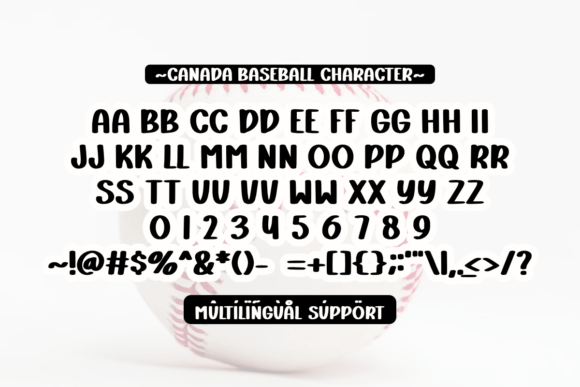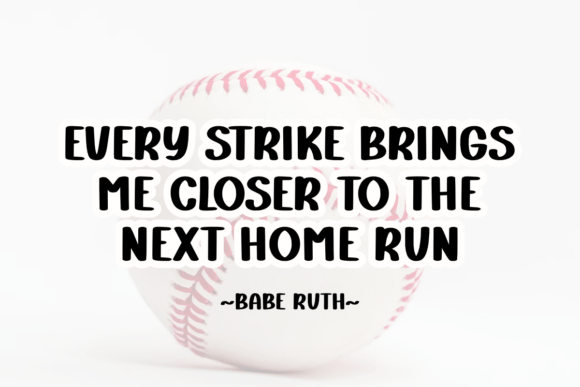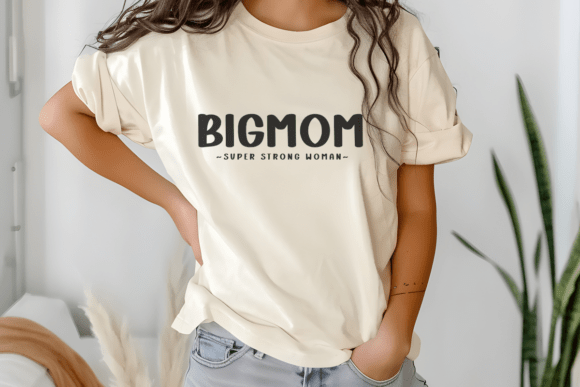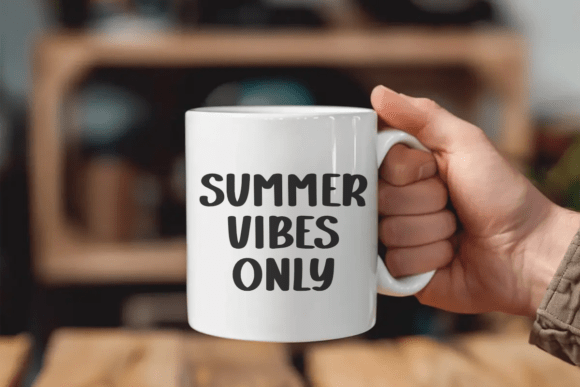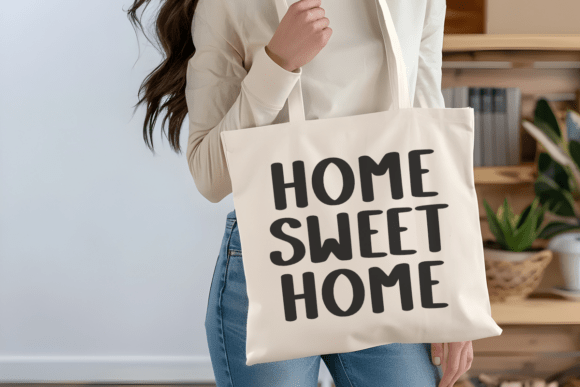
Introducing Canada Baseball Font: The Perfect Choice for Your Creative Projects
Are you a designer, crafter, or DIY enthusiast looking for a fun and bold font to elevate your creative projects? Look no further than the Canada Baseball Font! This sans serif font is perfect for a wide range of applications, from greeting cards and wedding invitations to gift labels, mugs, t-shirts, and more.
What Makes Canada Baseball Font So Special?
Canada Baseball Font is a unique and eye-catching font that is sure to make your designs stand out. Its bold and playful style makes it perfect for creating spectacular and interesting designs that will capture the attention of your audience. Whether you’re creating a fun and casual design or a more formal and elegant one, this font is sure to deliver.
Uses for Canada Baseball Font
Canada Baseball Font is a versatile font that can be used for a wide range of creative projects, including:
- Greeting cards: Create fun and festive greeting cards for birthdays, holidays, and special occasions.
- Wedding invitations: Make your wedding invitations stand out with this bold and playful font.
- Gift labels: Add a personal touch to your gifts with custom labels featuring your name or a special message.
- Mugs: Create fun and unique mug designs that are perfect for coffee, tea, or hot chocolate lovers.
- T-shirts: Design eye-catching t-shirts that are perfect for casual wear or as a promotional item.
- Quotes: Create inspiring and motivational quotes that are perfect for social media, posters, or flyers.
- Labels: Use this font to create custom labels for your products, packaging, or marketing materials.
Why Choose Canada Baseball Font?
There are many reasons why Canada Baseball Font is the perfect choice for your creative projects. Here are just a few:
- Unique style: This font has a unique and eye-catching style that is sure to make your designs stand out.
- Ease of use: Canada Baseball Font is easy to read and use, making it perfect for a wide range of applications.
- Versatility: This font can be used for both digital and print projects, making it a great choice for designers and crafters.
- Fun and playful: Canada Baseball Font is a fun and playful font that is perfect for creating designs that are lighthearted and humorous.
Tips for Using Canada Baseball Font
Here are a few tips for using Canada Baseball Font in your creative projects:
- Experiment with colors: Try pairing this font with different colors and backgrounds to create unique and eye-catching designs.
- Play with sizes: Experiment with different font sizes to create visual interest and hierarchy in your designs.
- Add graphics: Consider adding graphics or images to your designs to make them more visually appealing.
- Keep it simple: Don’t be afraid to keep your designs simple and clean – this font can shine on its own!
Canada Baseball Font is a fun and bold sans serif font that is perfect for a wide range of creative projects. Its unique style, ease of use, and versatility make it a great choice for designers and crafters. Whether you’re creating greeting cards, wedding invitations, gift labels, or more, this font is sure to deliver spectacular and interesting designs. So why wait? Download Canada Baseball Font today and start creating!